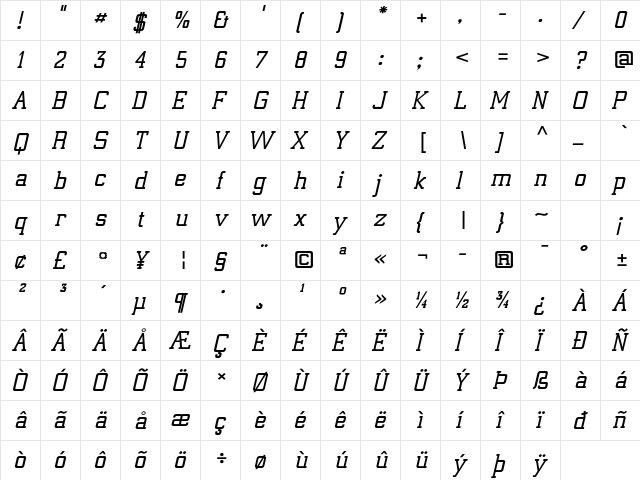
Electrum ADF Exp Bold Italic Font Preview
Electrum ADF Exp Bold Italic
Electrum ADF Exp Bold Italic Font Details
Design Context for Electrum ADF Exp Typeface
Electrum ADF Exp takes a measured approach to typography — its balanced proportions and neutral character make it a reliable workhorse for both digital and print work. The dynamic lean of this cut emphasises speed and emphasis in any layout. The heavy weight commands attention and anchors typographic hierarchies.
Pro Tip: Use Electrum ADF Exp for emphasis, pull quotes, and subheadings where its slanted energy can add rhythm to the layout.